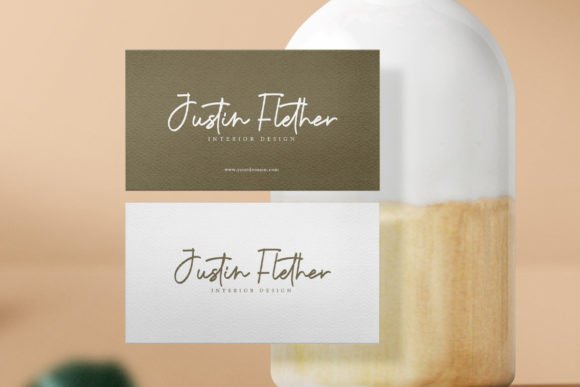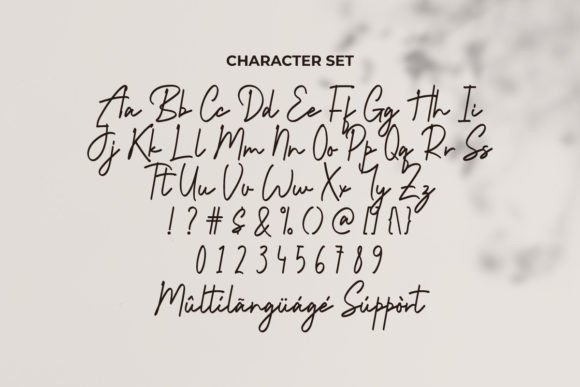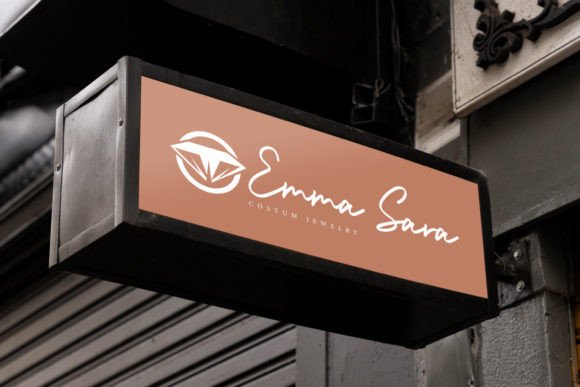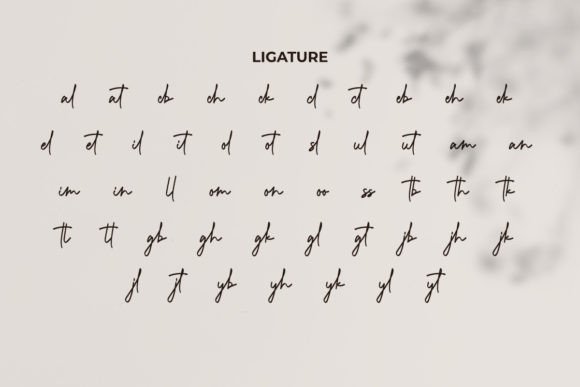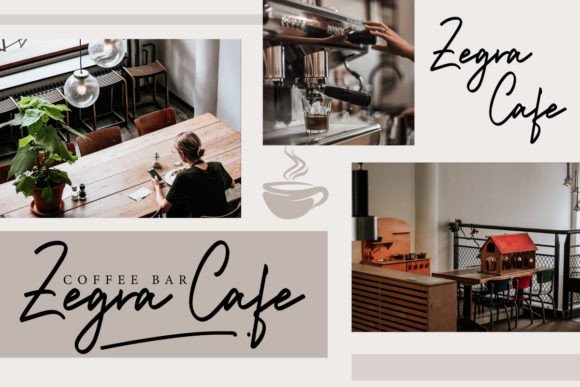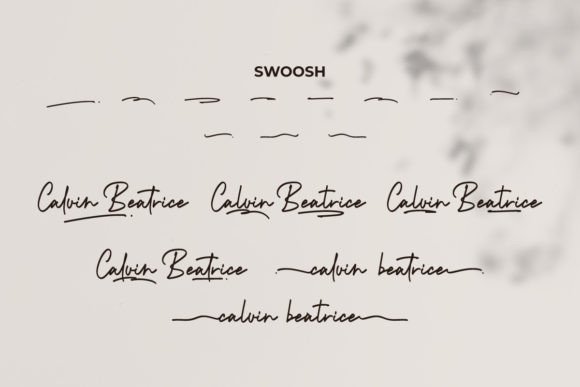
Unlock the Magic of Luxury Design with Calvin Beatrice Font
Have you ever stared at a blank page, struggling to find the perfect font to bring your design to life? That’s exactly where I found myself, until I discovered the enchanting Calvin Beatrice Font. Its beautiful, light handwritten style is nothing short of captivating, with a unique feel that sets it apart from the rest.
Whether you’re working on a high-end fashion campaign or a luxury wedding invitation, Calvin Beatrice Font is the perfect addition to elevate your design. With its stunning impact and versatility, this font is sure to add a touch of sophistication to any project. Plus, its PUA encoding makes it easy to access all the amazing glyphs and ligatures you need to create something truly special.
- Font Family: Calvin Beatrice, a sans-serif script font
- Unique Characteristics: Features a unique blend of modern and vintage elements, with subtle flair and organic feel
Review of Calvin Beatrice Font
First off, I want to say that the Calvin Beatrice Font is a beautiful script font. It has a lot of character and flair to it, which makes it perfect for adding a touch of elegance to any design project. ✨ The font has a nice balance between being playful and sophisticated, which is a hard combination to achieve.
- ✨ The font’s fluidity makes it great for creating handwritten-style text.
- ✨ The font’s versatility allows it to work well in a variety of design contexts, from invitations to signage.
- ✨ The font’s subtle imperfections give it a unique, handmade feel that’s hard to replicate with other fonts.
- ⚠️ The font may be difficult to read at very small sizes, so it’s best to use it in larger formats.
- ⚠️ The font’s playfulness may not be suitable for more formal or conservative design projects.
Overall, I think the Calvin Beatrice Font is a great addition to any designer’s toolkit. While it may have some limitations, its unique character and versatility make it a valuable asset for any design project.
Calvin Beatrice Font is ideal for creating unique and creative designs, such as:
- Headlines and titles for marketing materials
- Custom typography for logos and branding
- Eye-catching graphics for social media and websites
Alternatives to Calvin Beatrice Font for Designers
Great Vibes is a modern, elegant script font perfect for creating a sophisticated and luxurious feel. It’s ideal for branding, logos, and headings in fashion, beauty, or high-end product designs. Compared to Calvin Beatrice Font, Great Vibes has a more refined and polished appearance, making it suitable for premium brands.
Alex Brush is a beautiful, handwritten font that works well for creative, artistic, or personal projects. It’s great for adding a touch of warmth and personality to designs. Compared to Calvin Beatrice Font, Alex Brush has a more organic and free-flowing feel, making it suitable for projects that require a more casual and approachable tone.
Carolyna Pro is a stylish, modern script font that’s perfect for creating a bold and eye-catching effect. It’s ideal for headings, titles, and branding in fashion, beauty, or lifestyle designs. Compared to Calvin Beatrice Font, Carolyna Pro has a more dramatic and attention-grabbing appearance, making it suitable for projects that require a strong statement.
Dancing Script is a beautiful, elegant script font that works well for creating a romantic and whimsical feel. It’s great for headings, titles, and branding in wedding, fashion, or lifestyle designs. Compared to Calvin Beatrice Font, Dancing Script has a more playful and expressive appearance, making it suitable for projects that require a touch of elegance and sophistication.